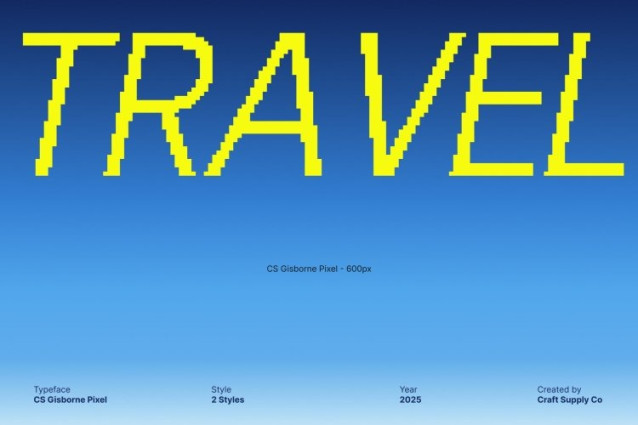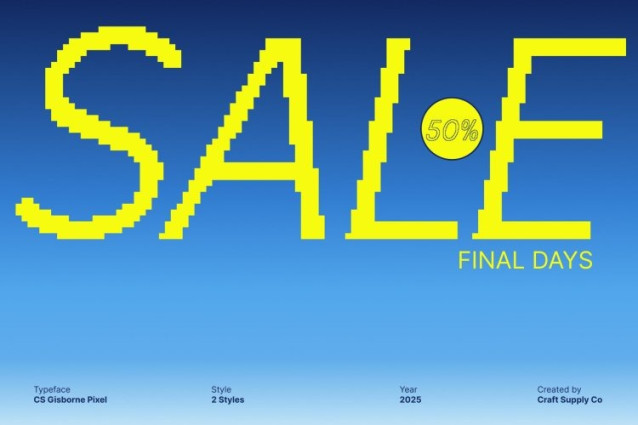
CS Gisborne Pixel Font
CS Gisborne Pixel Font – This is a sophisticated sans serif font that merges the timeless clarity of grotesque typography with the crisp structure of pixel-inspired detailing. Designed for creators who value both precision and personality, this typeface delivers a polished visual experience that enriches any layout.
Clarity-Driven Design for Professional Use
Crafted with a focus on visual discipline, this font excels in layouts that demand sharp communication. The refined grotesque structure supports effortless reading at various sizes, making it ideal for graphic design layouts, editorial compositions, and branding systems.
Pixelated Aesthetic for a Digital Edge
The subtle pixel effect sets this font apart, adding a layer of digital charm without overwhelming the clean grotesque foundation. This aesthetic bridges classic modernism with today’s digital culture, making it perfect for tech-forward branding, UI-inspired posters, innovative advertisements, and contemporary creative projects that need a touch of progressive flair.
Versatile for Bold Visual Statements
Whether used for logos, posters, or high-impact titles, this font adapts seamlessly to diverse design needs. Its modern structure and pixel nuance create a strong visual identity that stands out in both print and digital media. From minimalist branding to expressive graphic compositions, this font brings refined sophistication mixed with digital freshness allowing your designs to communicate with strength, clarity, and style.